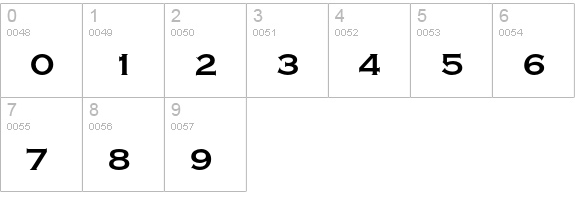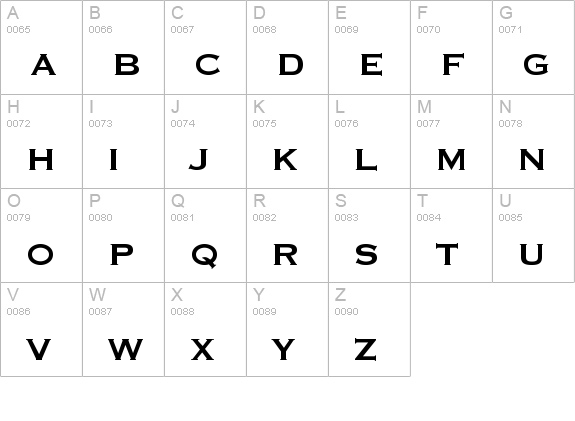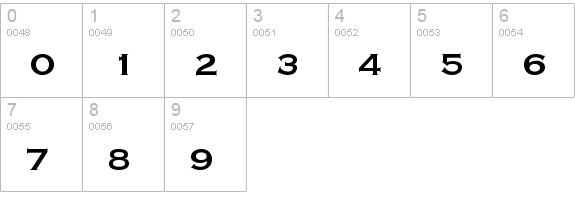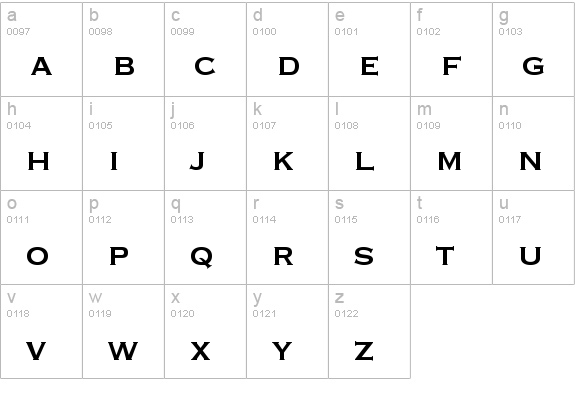
Copperplate Gothic Std 31 BC Font Details
Copperplate Gothic Std 31 BC is a classic and timeless font that exudes elegance and sophistication. With its distinctive serifs and clean lines, this font is perfect for creating a refined and polished look in your designs. The versatility of Copperplate Gothic Std 31 BC makes it suitable for a wide range of projects, from formal invitations to professional presentations. The best part? Copperplate Gothic Std 31 BC is available for free download at FontsMarket.com. So whether you're a designer looking to add a touch of sophistication to your work or just someone who appreciates beautiful typography, be sure to check out this exquisite font today.